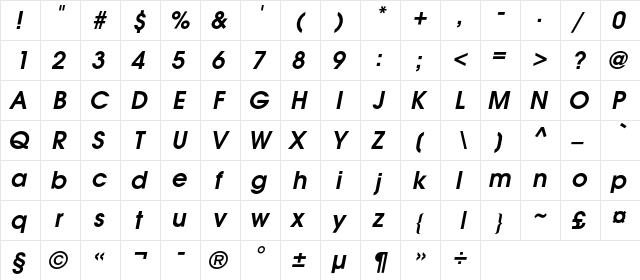
AGAvalancheC Bold Italic
Design Context for AGAvalancheC Typeface
AGAvalancheC offers clean, dependable letterforms without strong stylistic allegiance, making it a practical choice for designers who need flexibility. Its italic angle brings a sense of urgency and motion to the letterforms. The heavy weight commands attention and anchors typographic hierarchies.
Pro Tip: Use AGAvalancheC for emphasis, pull quotes, and subheadings where its slanted energy can add rhythm to the layout.